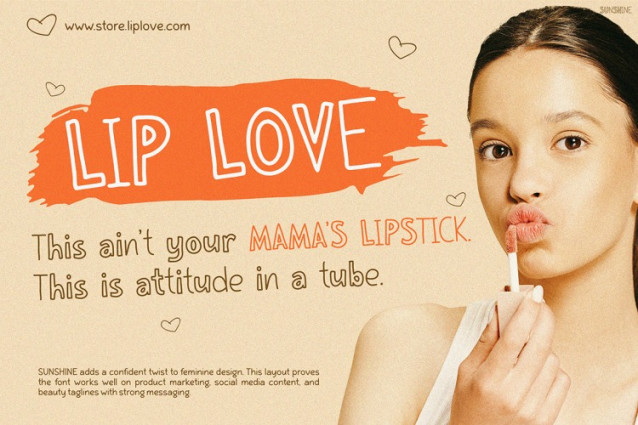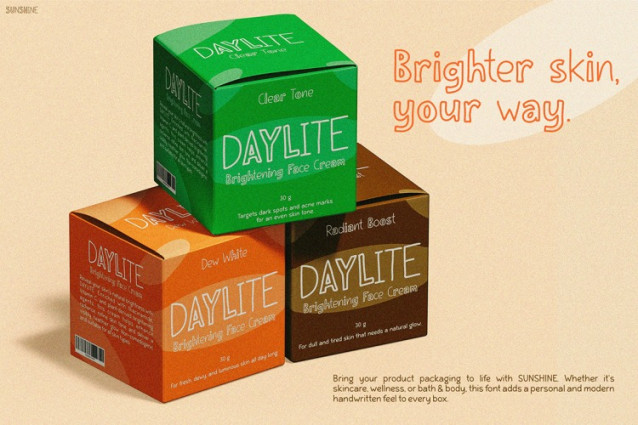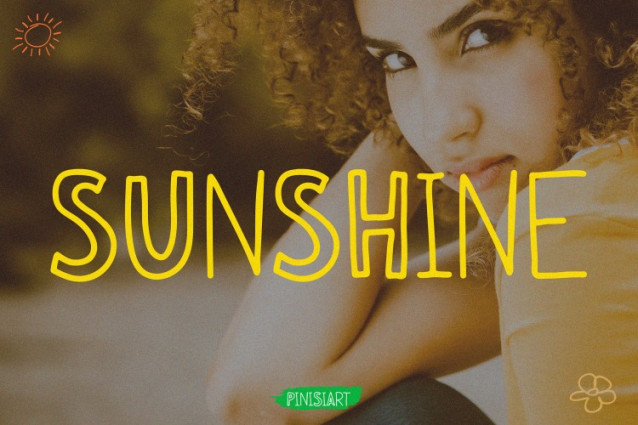
Sunshine Display Font
Sunshine Display Font is a charming and stylish typeface that brings warmth and friendliness to your designs. From the very first glance, it feels personal and inviting. With smooth curves and a hand-lettered feel, SUNSHINE offers a clean yet playful look that instantly stands out.
What makes SUNSHINE unique is its balance. On one hand, it’s elegant enough for modern branding. On the other hand, it remains casual and approachable. Additionally, the rounded edges and consistent stroke width create a calm, flowing rhythm. This ensures that each character is not only beautiful but also easy to read. As a result, SUNSHINE adds visual charm without overwhelming your content.
Whether you’re designing for social media or print, SUNSHINE adapts beautifully. It adds personality to Instagram posts, story covers, product packaging, and even personal blogs. Moreover, the font offers just the right amount of flair—highlighting your message while maintaining clarity.